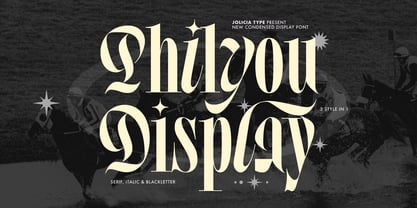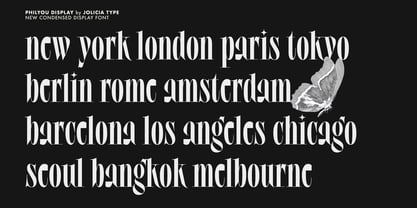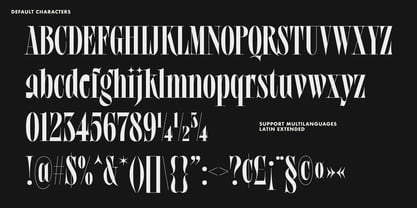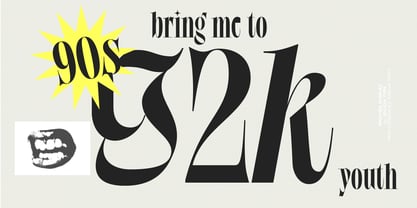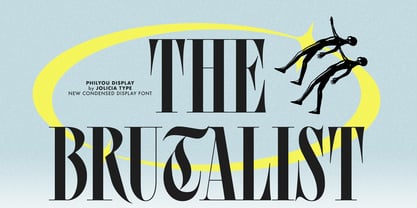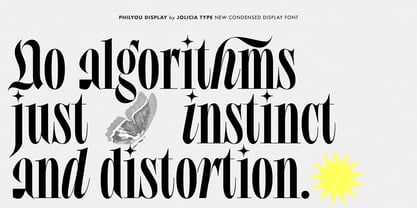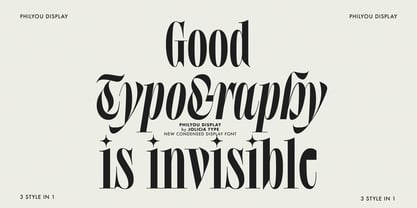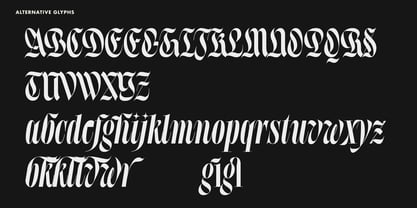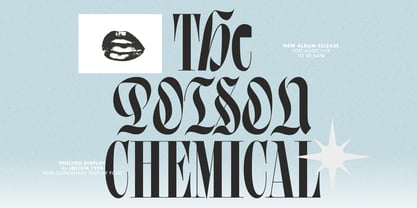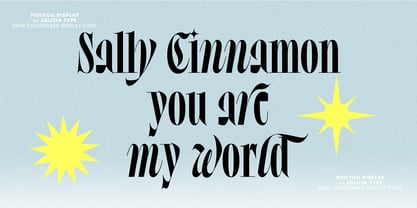
Philyou Display
par Jolicia Type
La famille de polices Philyou Display a été conçue par Laire Banyu et publiée par Jolicia Type. Philyou Display contient 1 styles. En savoir plus sur cette famille
Philyou Display is a versatile condensed serif display typeface that seamlessly combines three distinct styles into one expressive font family. Drawing inspiration from classic Didot aesthetics, it features high stroke contrast and tall condensed proportions, delivering a refined, luxurious, and editorial feel ideal for premium branding, headlines, fashion layouts, and display typography. The bold Blackletter-style uppercase alternates introduce a dramatic historical character, adding depth and personality while maintaining structural harmony with the condensed serif base. Additionally, the italic lowercase alternates are designed as true italics rather than mechanically slanted, providing a smoother, more dynamic rhythm that enriches typographic compositions and offers expressive options for emphasis and variation. With its unique blend of Didot serif, Blackletter uppercase alternates, and italic lowercase alternates, Philyou Display balances classic luxury, historical character, and modern versatility, making it a powerful choice for contemporary display design.